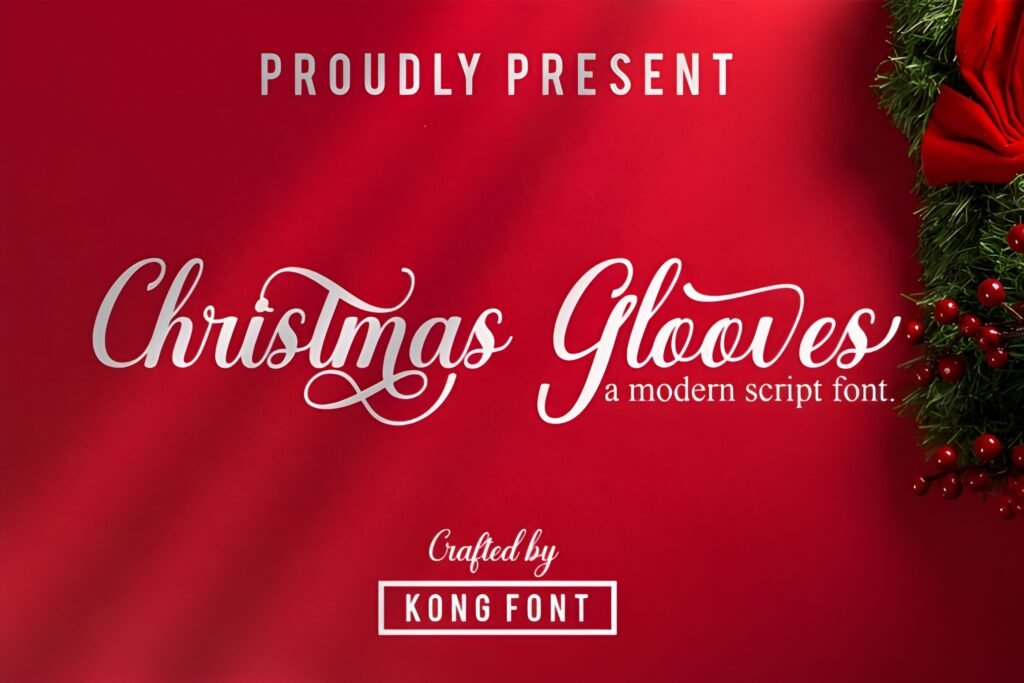
Christmas Font
Christmas Font is a decorative typeface crafted to evoke the festive atmosphere of winter holidays. Its design aims to convey warmth and cheer, making it suitable for projects that seek to capture the spirit of Christmas through typography. The font’s style suggests a playful yet elegant character, intended to enhance seasonal communications and creative works.
What Makes Christmas Font Distinctive?
This font is described as charming and decorative, with each letter designed to sparkle with festive character reminiscent of holiday lights. It is positioned as versatile for both digital and print use, compatible with common design software and cutting machines. The overall impression is one of a typeface that adds a cozy, cheerful vibe to text, suitable for a variety of holiday-themed applications.
Best Uses for Christmas Font
Ideal applications include Christmas cards, invitations, posters, product packaging, seasonal branding, t-shirts, and DIY crafts. It also fits well for logos, quotes, social media graphics, and event materials where a festive mood is desired. The font’s decorative nature suggests it works best in display sizes rather than extended body text.
How to Pair Christmas Font
For effective typography hierarchies, pair this decorative font with clean, simple sans-serif fonts for body text to maintain readability. For example, use Christmas Font for headlines or titles, complemented by a neutral sans-serif like Helvetica or Open Sans for subheadings and body copy. Alternatively, a subtle serif font can provide contrast when used in subheads, with Christmas Font reserved for prominent festive elements.
Practical Design Tips
Use ample whitespace around text set in this font to let its decorative details stand out without clutter. Scale the font larger for headlines or focal points to maximize its festive impact. Avoid using it in long paragraphs to prevent visual fatigue. Combining it with minimalistic layouts can help balance its playful elegance. Consider using it in color palettes that reflect holiday themes, such as reds, greens, golds, or whites, to reinforce the seasonal feel.
Can Christmas Font be used for body text in holiday newsletters?
Given its decorative and festive style, it is better suited for headlines or short phrases rather than extended body text, which may require more legible, simpler fonts.
What types of projects benefit most from using Christmas Font?
Projects that aim to convey holiday cheer and festivity, such as Christmas cards, seasonal branding, invitations, and social media graphics, are ideal contexts for this font.